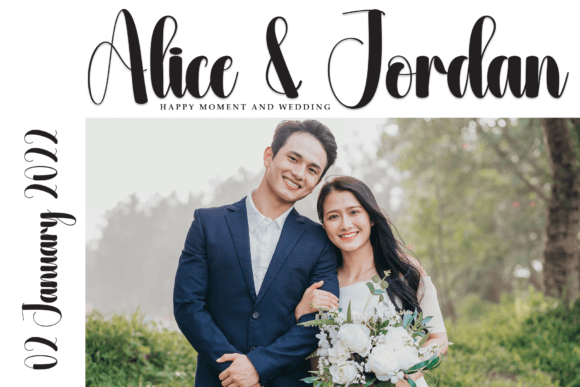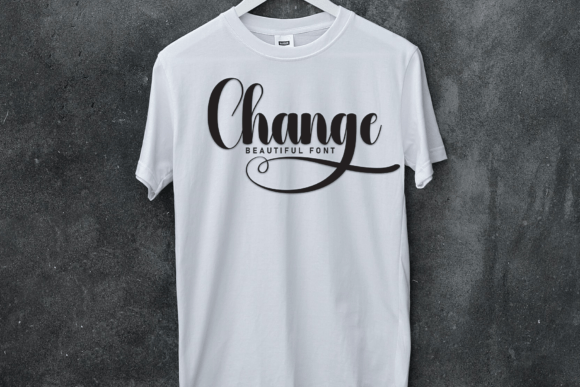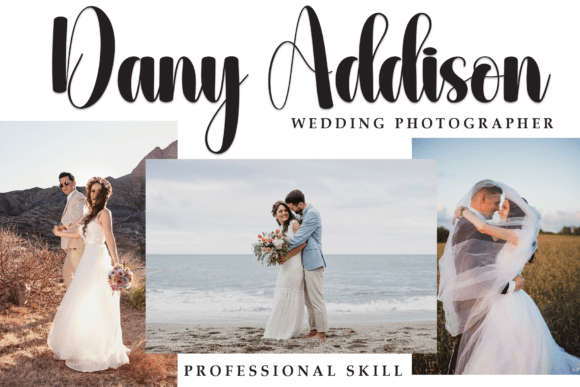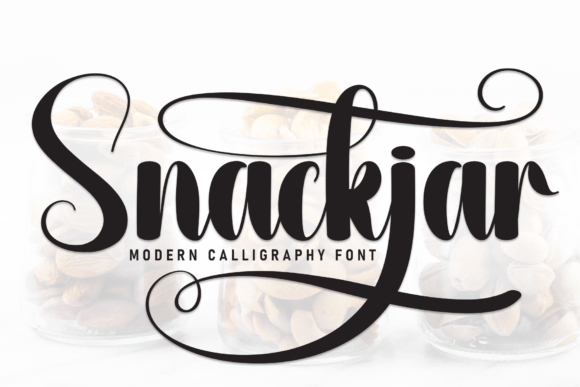
Introduction to Snackjar Font
Snack Jar is a stylish and incredibly elegant script font.
Key Features of Snackjar Font
Why Choose Snackjar Font?
Snackjar Font offers exceptional quality and versatility, making it a valuable addition to your design toolkit. Whether you’re creating for personal projects or commercial use, Snackjar Font delivers professional results.